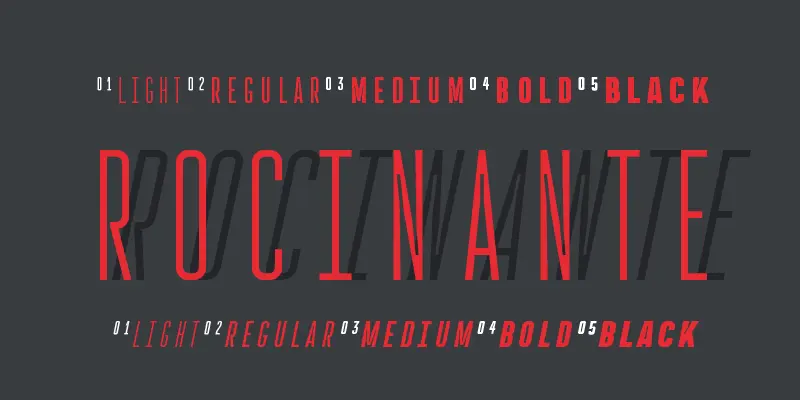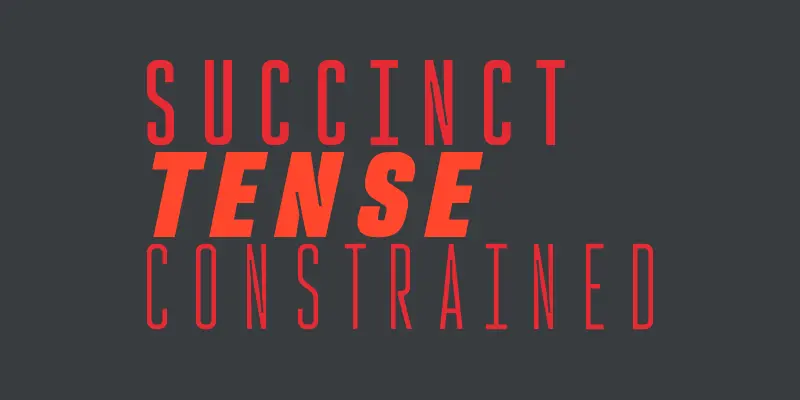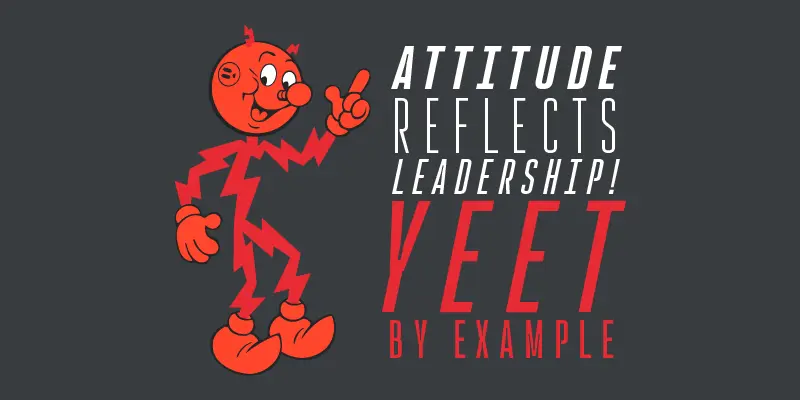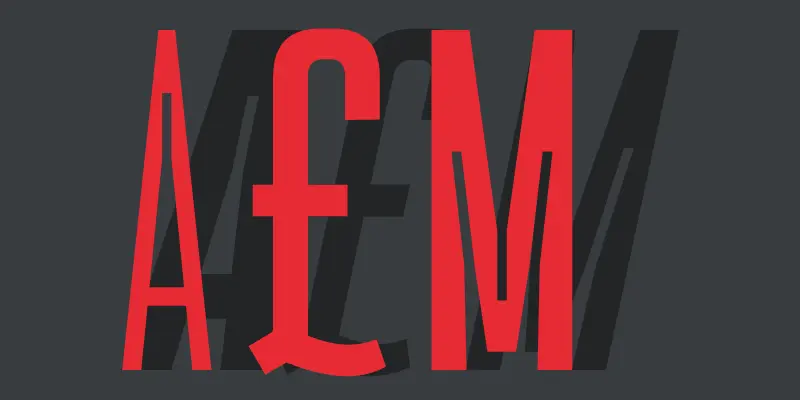
Rocinante Titling
From XO Type Co
Rocinante Titling is a study in interior and exterior tension packed into a tall, somewhat geometric frame. Lightwells, expanded and enlarged to declare them a design detail and not just a functional compensation, define narrow spaces where strokes must bend to intersect. Rocinante Titling’s stroke weights and spacing match all those of Havelock Titling. Make new combinations while retaining rhythm. Light matches Light, Regular matches Regular, and so forth.
Designed by Patric King